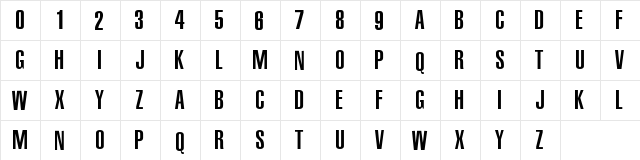
NBA Trailblazers Regular
Design Context for NBA Trailblazers Typeface
NBA Trailblazers is a composed and adaptable typeface that performs quietly and consistently across a wide range of design contexts.
Pro Tip: Use NBA Trailblazers in both headline and body roles to test its range before committing to a single application.